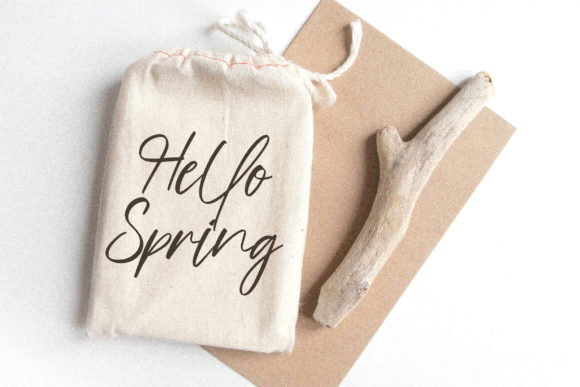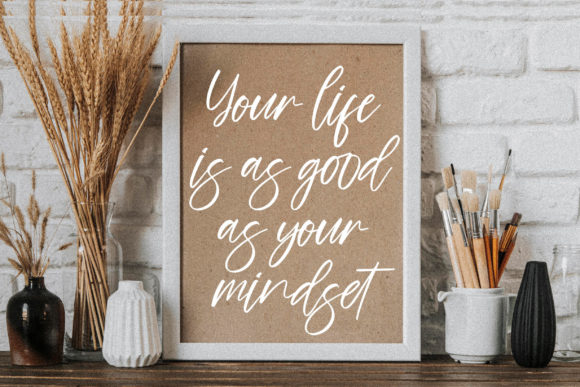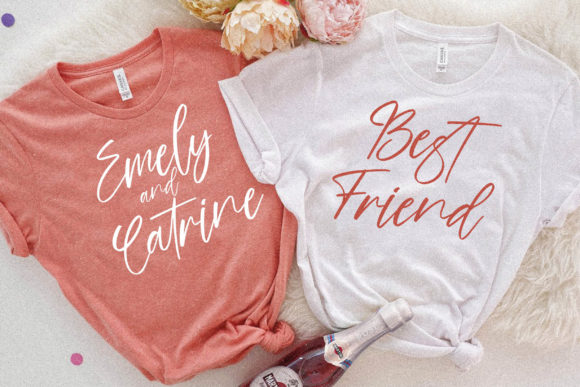
Introduction to Hand Script Font
Hand Script is a sweet and delicate handwritten font.
Dainty and joyful, this font will be ideal for writing wedding invitations, cards or any other design that may need a romantic, personalized touch .